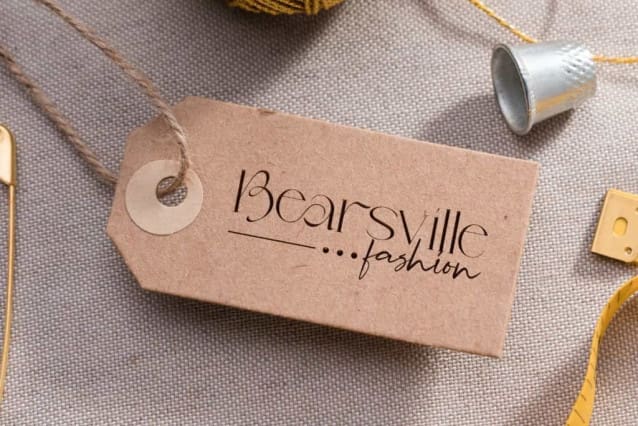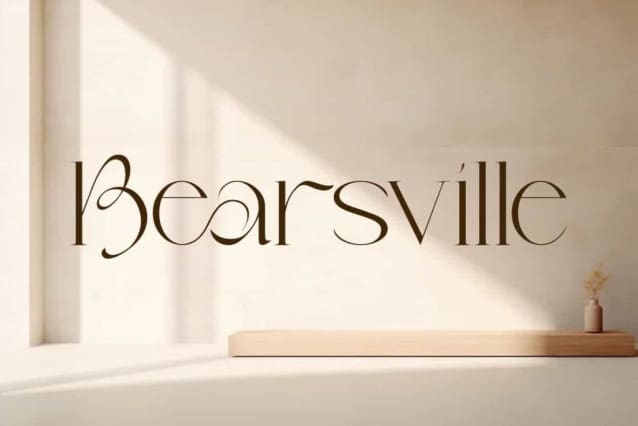
Bearsville Font
Bearsville Font is an elegant serif display font designed by VinType Studio. This font has a clean appearance with sleek lines that add to its beauty. It will suits many designs, such as cover, custom design, gift box, invitation, label, poster, product packaging, quotes, screen printing, signage, stationery, title, website, and more!
Bearsville Font includes full set of Uppercase and Lowercase Basic Characters, Numerals, Punctuation, and Symbol. This font is include Ligature characters and perfect for you who looking for luxury font, so it will be suitable for many industries, such as accessories and jewelry, advertising, beauty product, craft, event or wedding organizer, fashion, florist, home furniture, perfume, resort, restaurant, etc.